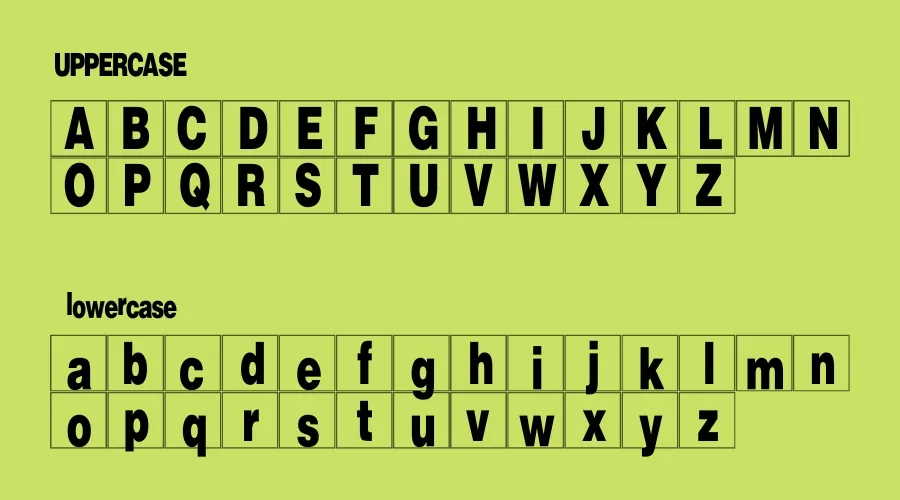
About Fire Walk36 Font
In this post, we will introduce to you a very elegant and free texture called Fire Walk36 Font. This font was developed by an unknown graphic designer and is under the category of the decorative texture family with the unique and bold type of styles.